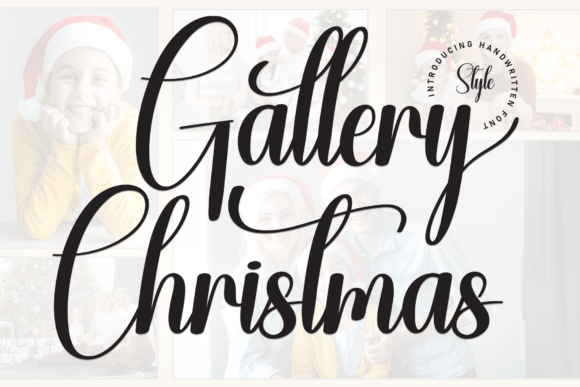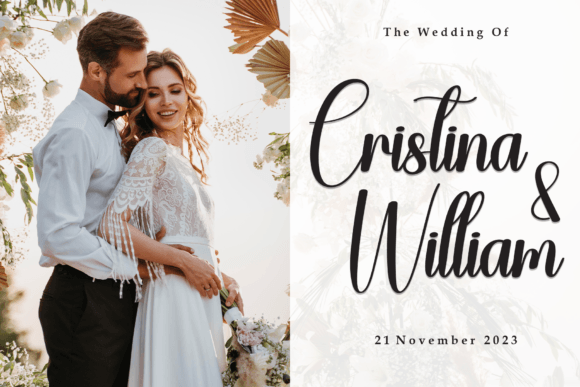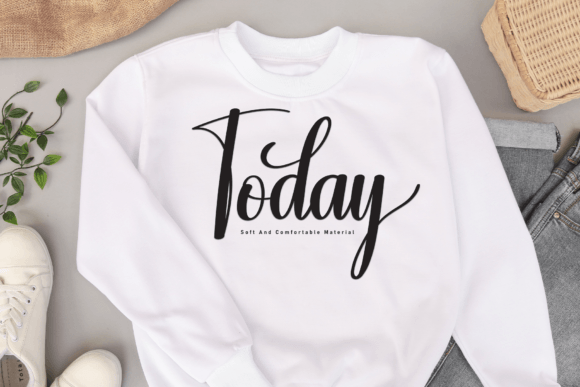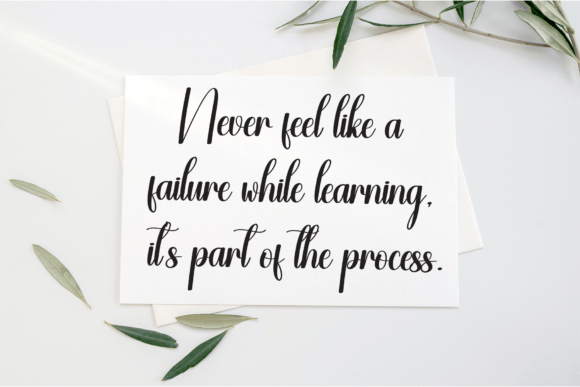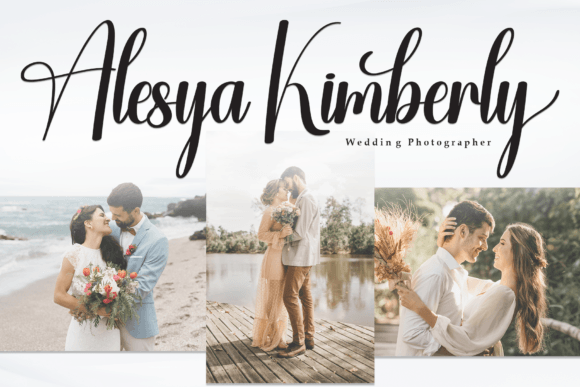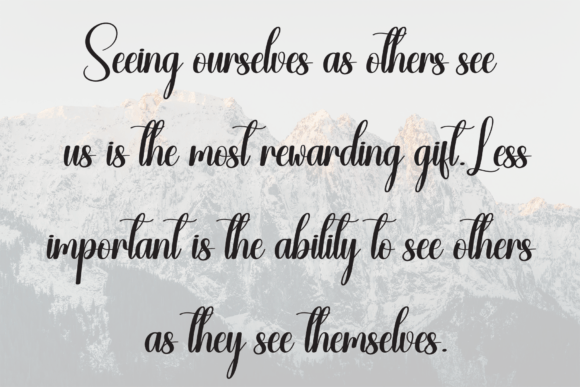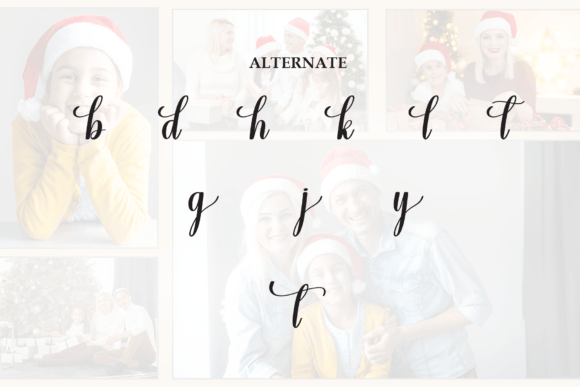
Get Ready to Deck the Halls with Gallery Christmas Font
There’s nothing quite like the feeling of brainstorming ideas for a special holiday project – the twinkle in your eye, the flutter in your heart, and the excitement that comes with bringing your creative vision to life. As you sit down to plan your festive designs, you might be wondering how to add that extra special something that makes your projects truly stand out. This is where Gallery Christmas Font comes in – a sweet and cursive handwritten font that’s sure to add a touch of joy and romance to each of your creations.
Whether you’re a seasoned designer or a DIY enthusiast, Gallery Christmas Font is the perfect addition to your holiday toolkit. Its gentle, flowing lines make it versatile enough to pair beautifully with a wide range of design styles, from rustic to elegant. With this font, you’ll be able to create projects that truly capture the magic of the season – and that’s something to be proud of!
Gallery Christmas Font Key Features
- Font Family: This font comes in a single family with 6 styles, including Regular, Italic, Bold, Bold Italic, Outline, and Shadow.
- Unique Characteristics: The Gallery Christmas Font features a festive, hand-drawn design with intricate details and ornaments, making it perfect for holiday-themed designs and projects.
Gallery Christmas Font Review
First impressions of Gallery Christmas Font are that it’s a cheerful and playful font, perfect for adding some festive flair to your designs. ✨ The intricate details and flourishes give it a whimsical feel that’s sure to stand out.
- Beautifully designed for Christmas and winter-themed designs
- Cute and playful feel that’s perfect for social media and web graphics
- Good for creating festive invitations, cards, and other holiday-related materials
However, there are some limitations to consider. ⚠️ The font might be a bit too ornate for more serious or minimalist designs. Additionally, the character set is limited, which could be a problem if you need to use it for body text or longer blocks of text.
Overall, I think Gallery Christmas Font is a great choice for anyone looking to add some holiday cheer to their designs. While it may not be the best choice for every project, it’s definitely a fun and unique font that can help your designs stand out during the holiday season.
The “Gallery Christmas Font” is perfect for creating festive and holiday-themed designs. Some common use cases include:
- Christmas card designs
- Holiday party invitations
- Winter-themed social media graphics
For best results, use the “Gallery Christmas Font” in conjunction with bold, bright colors and festive graphics to create a fun and playful design.